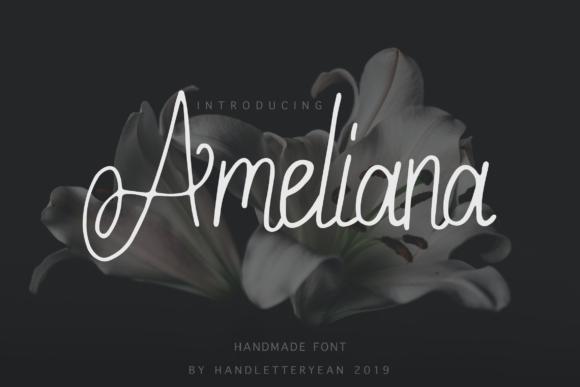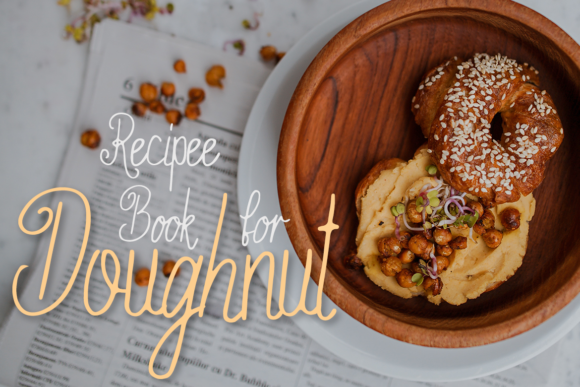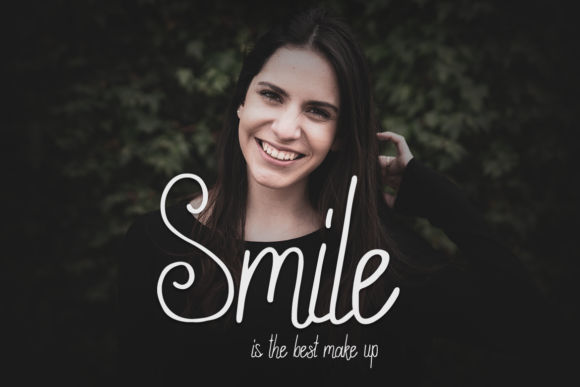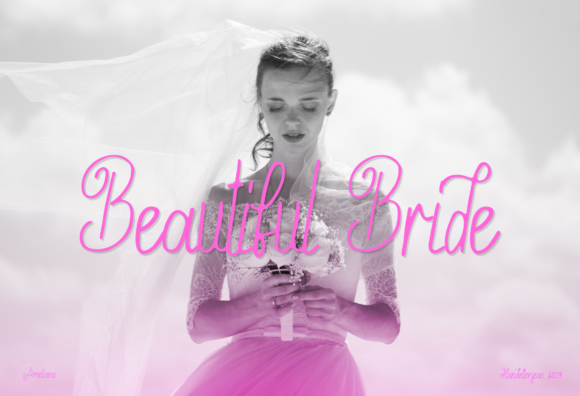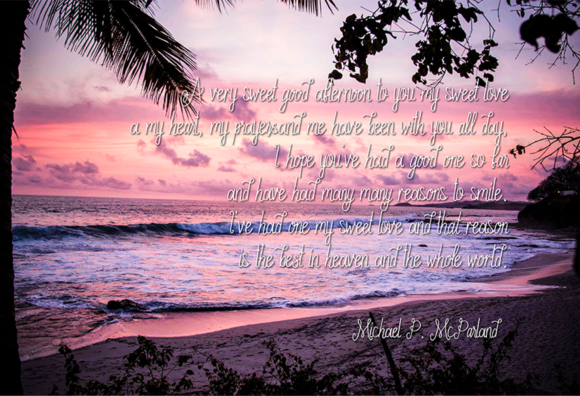
Ameliana Font
About Ameliana Font
The Ameliana is an amazing handwritten font. It has a great readability and is perfect for adding a natural look to your designs.